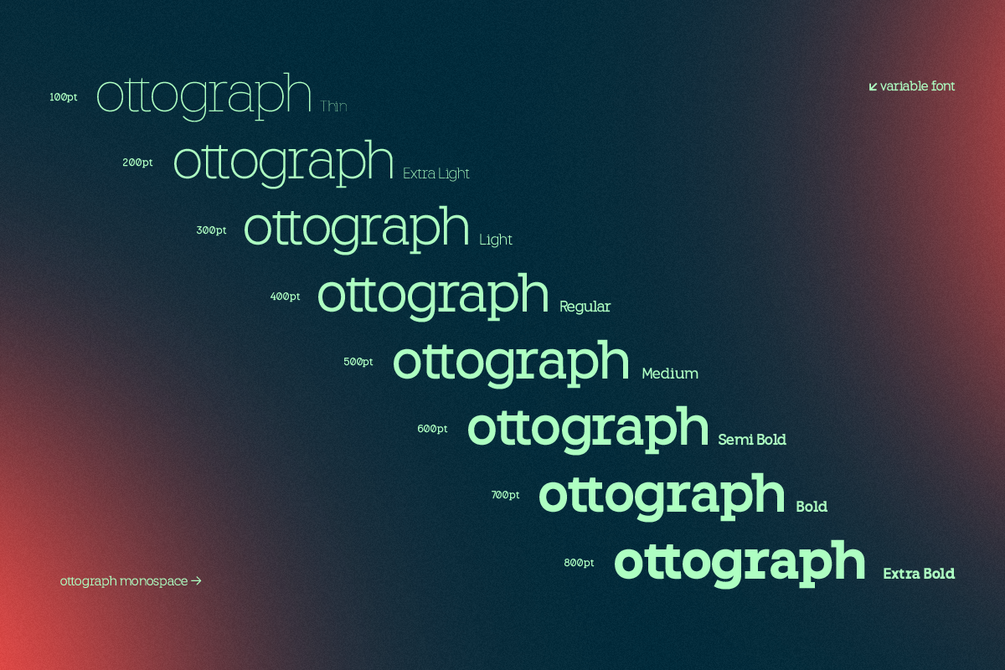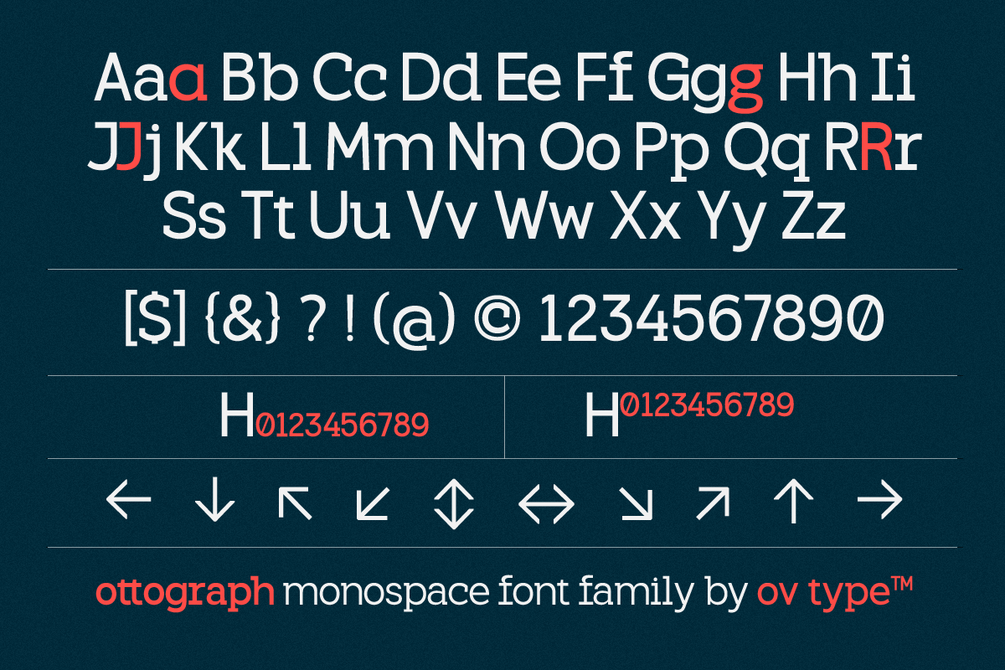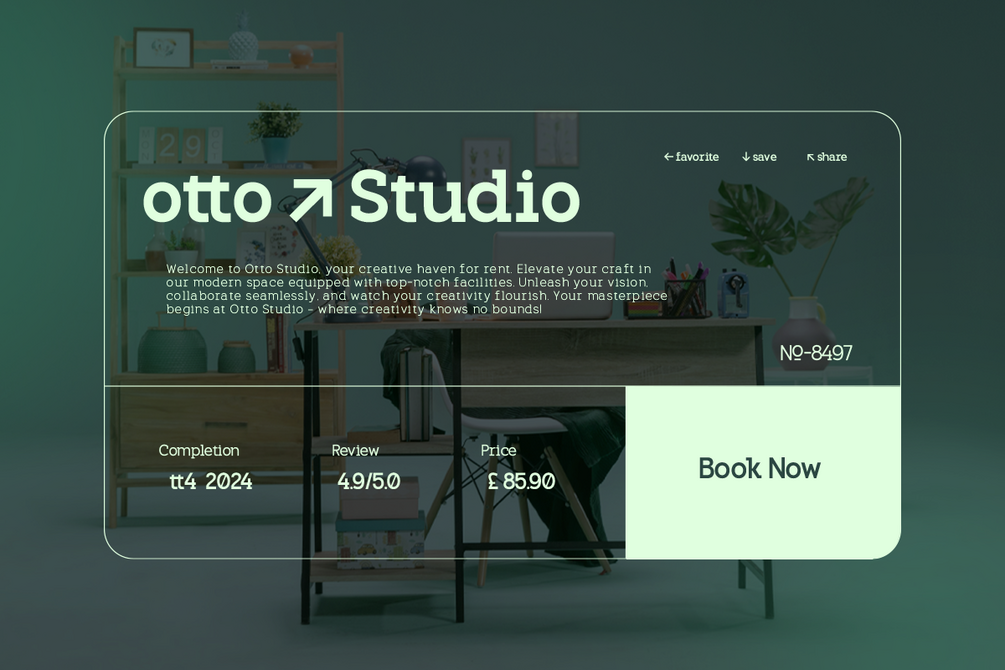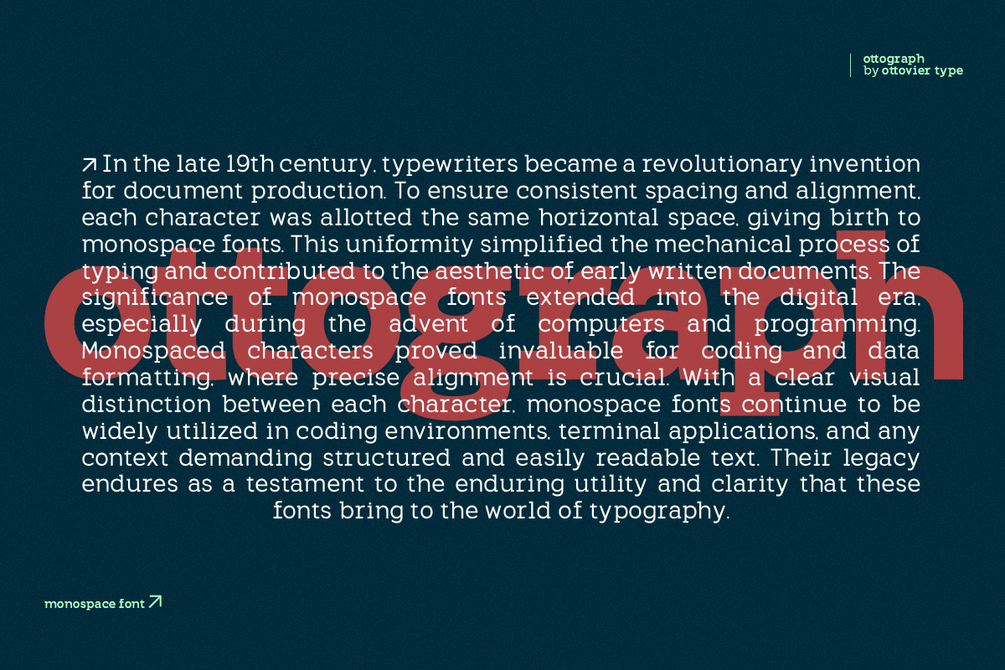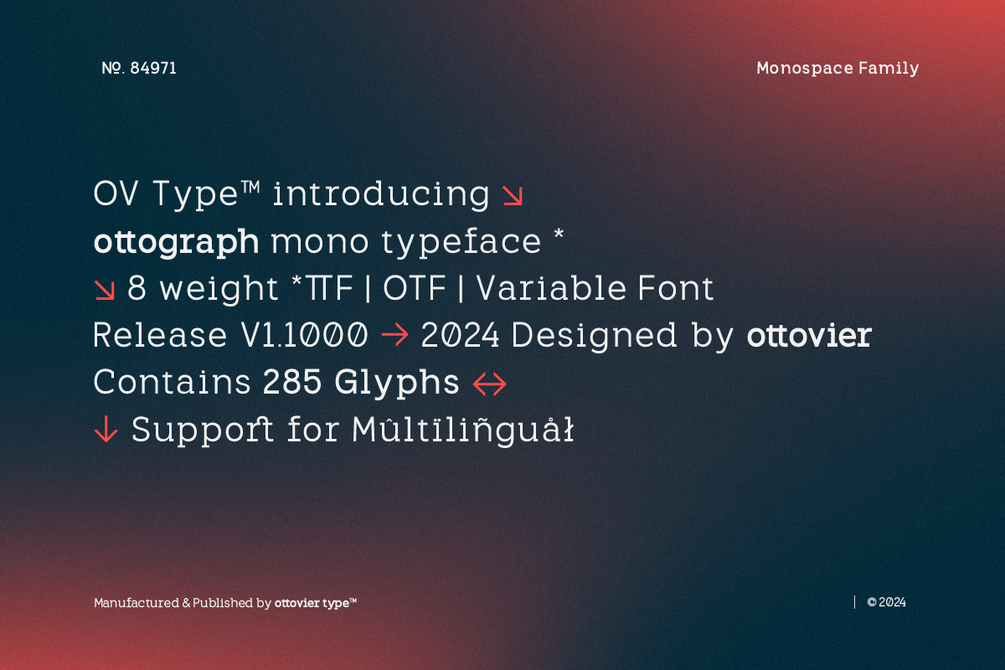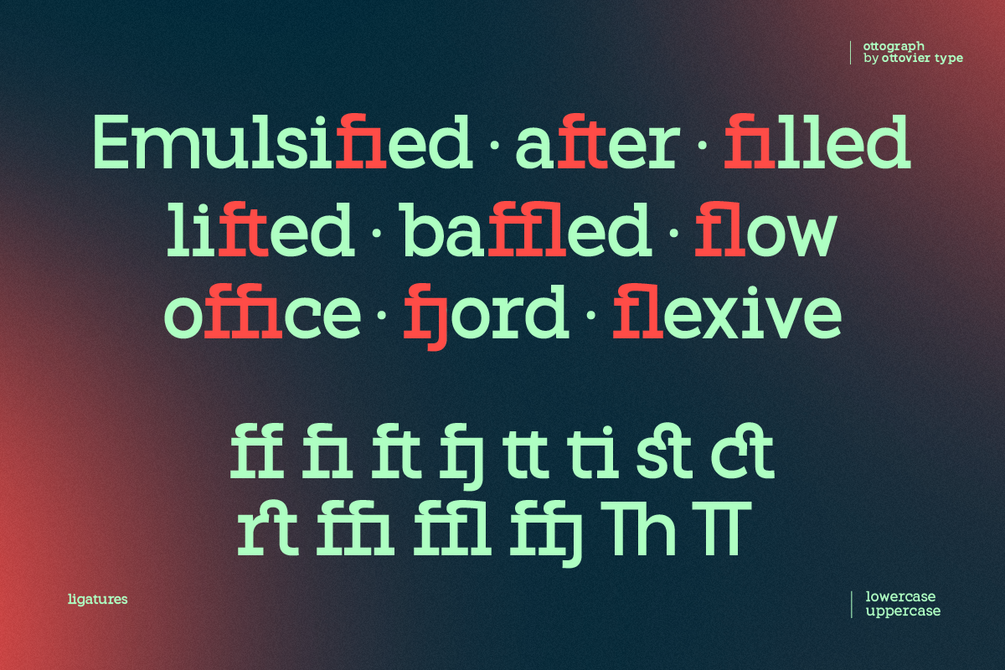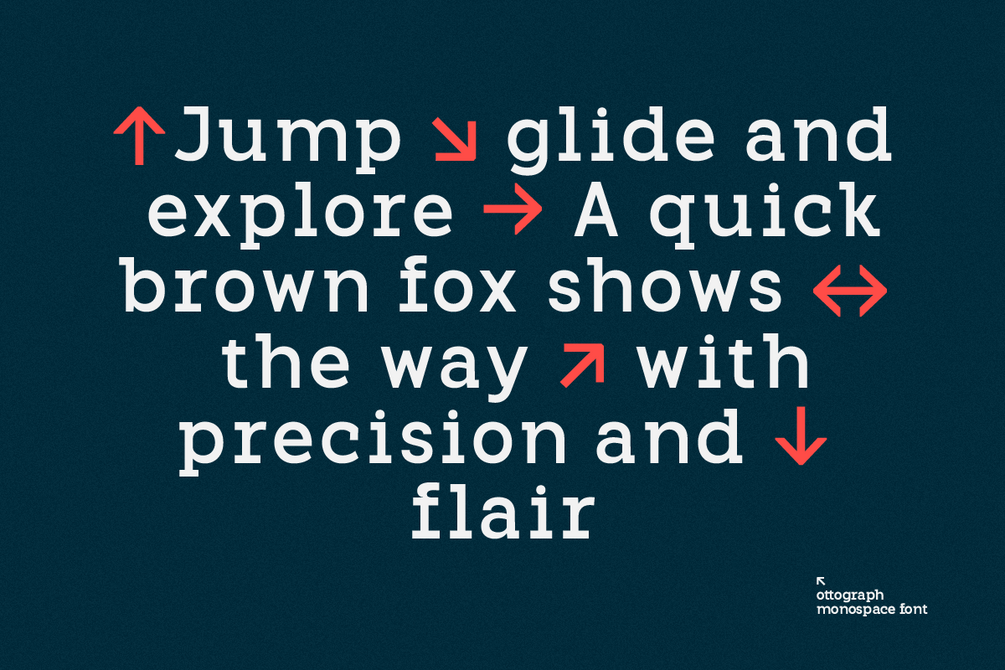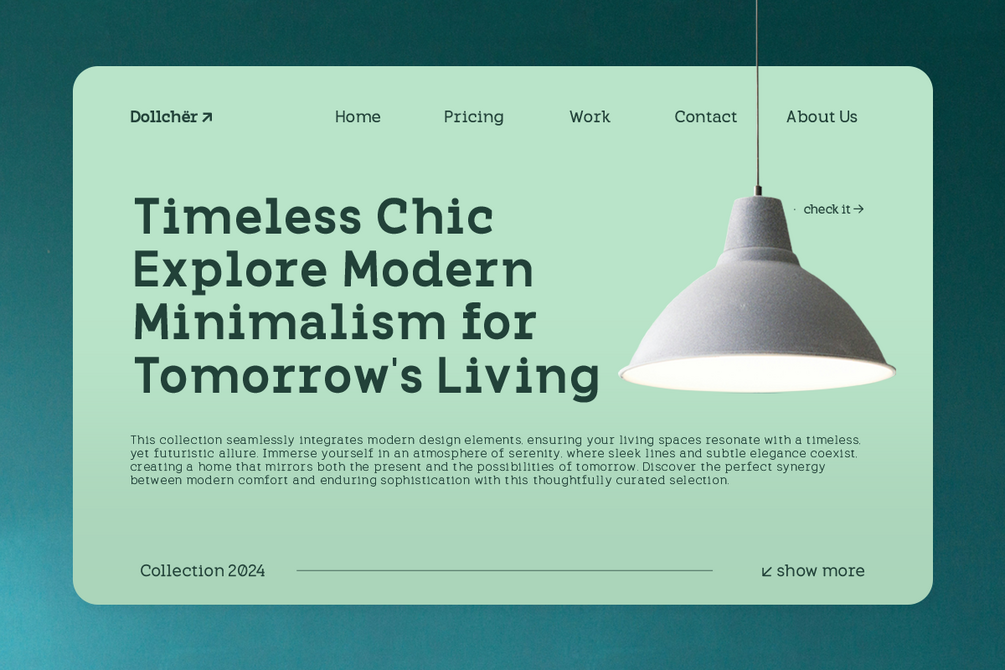
Ottograph | Duospace Font Family
Hey there! We know finding the perfect font can be a real challenge. That’s why we're excited to introduce OV Ottograph Duospace Font Family. Unlike the usual monospace fonts, OV Ottograph has a cool duospace design that brings a fresh, modern vibe to any project.
Whether you’re working on web design, branding, or editorial layouts, this font has you covered. Plus, you’ll get future updates to keep your design toolkit up-to-date. Ready to upgrade your design game? Give OV Ottograph a try!